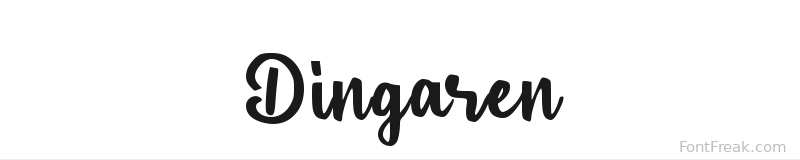
Dingaren
About Dingaren
Dingaren is a captivating display font designed by Wahyu Eka Prasetya, characterized by its playful and artistic flair. This font falls into the decorative category, making it an excellent choice for projects that require a unique and eye-catching typographic approach. Its distinct strokes feature a moderate weight, balanced with a subtle contrast that enhances readability without sacrificing style. The letters have a slightly irregular spacing, which contributes to its whimsical appearance, while the rounded edges and playful curves add a sense of friendliness and warmth to any design.
The versatility of Dingaren makes it suitable for a variety of applications. It shines in creative contexts such as wedding invitations, where its charming aesthetic can convey romance and joy. Additionally, it works beautifully on movie posters, adding a touch of artistry that can capture the essence of the film. Restaurant menus can benefit from Dingaren's inviting look, enticing diners with a visually appealing presentation. Furthermore, this font is ideal for social media graphics, giving content creators the ability to stand out in a crowded digital landscape.
Dingaren is particularly appealing to graphic designers, small business owners, and content creators looking to enhance their branding with a distinctive font. Its freeware license allows for easy access, encouraging users to explore its potential without financial constraints.
What sets Dingaren apart is its ability to blend creativity with functionality. It provides a refreshing alternative to more traditional fonts, allowing designers to express their ideas in a way that feels both personal and professional. Whether you're crafting promotional materials or designing memorable events, the Dingaren font free download offers endless opportunities for creative expression.